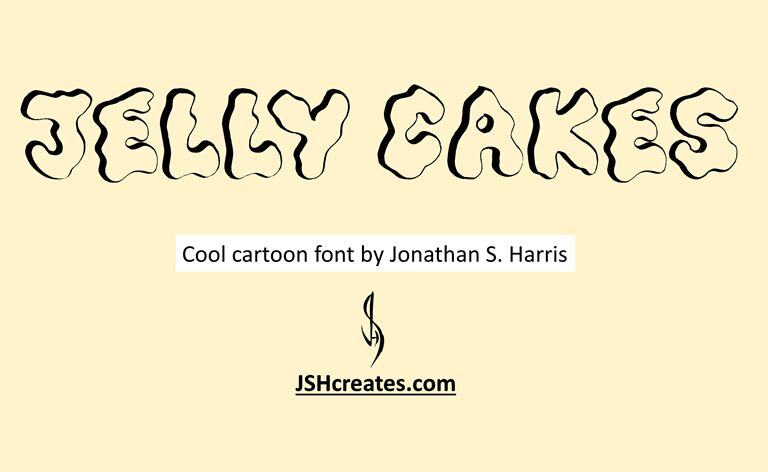
Jelly Cakes, designed by Jonathan S Harris, is a bold cartoon display font that is perfect for creative projects. Use it to make eye-catching logos, posters, and book covers that stand out from the crowd!